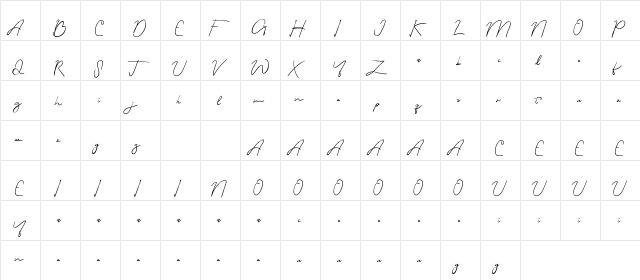
Holters Demo Script Inline Regular
Design Context for Holters Demo Script Inline Typeface
Holters Demo Script Inline flows with the natural rhythm of handwritten lettering, making it ideal for designs that call for warmth and personal expression.
Font Pairing: Combine Holters Demo Script Inline with a simple geometric sans for maximum contrast — the tension between flowing curves and clean structure is a classic typographic pairing.
Pro Tip: Pair Holters Demo Script Inline with a clean sans-serif for supporting text. The contrast between fluid script and geometric structure creates an elegant typographic hierarchy.